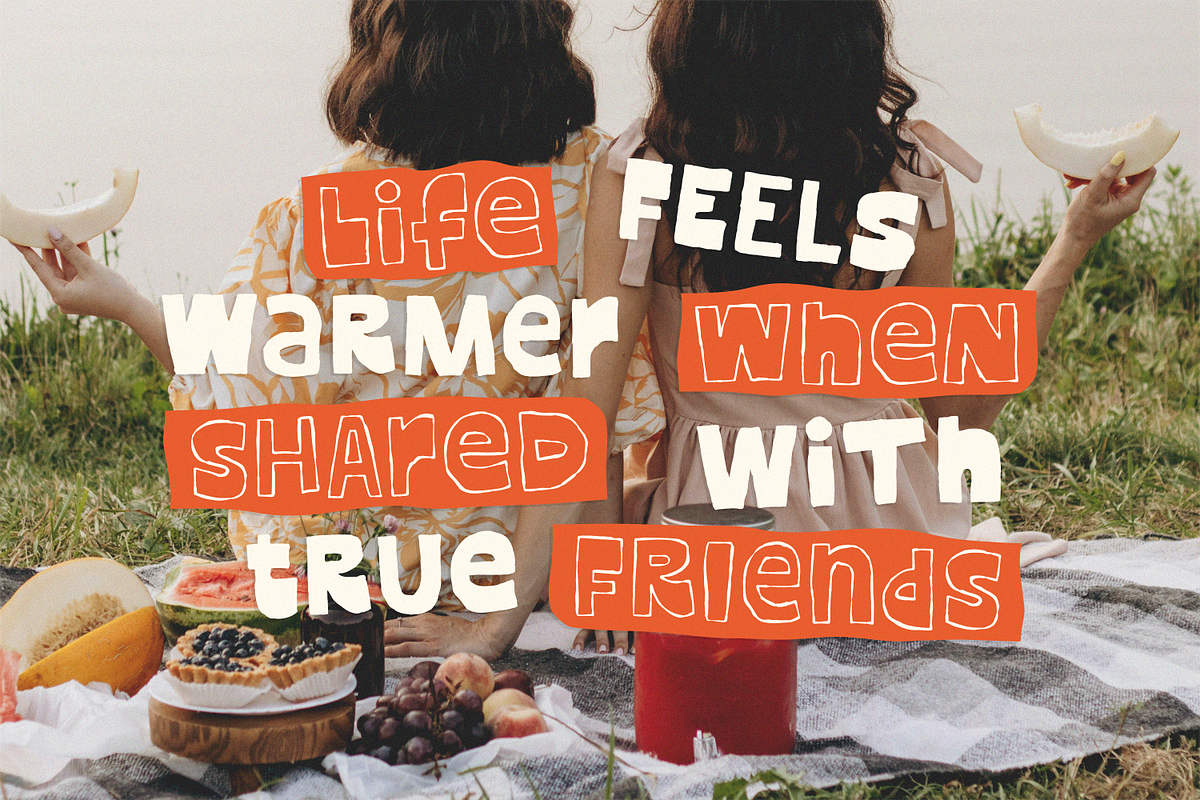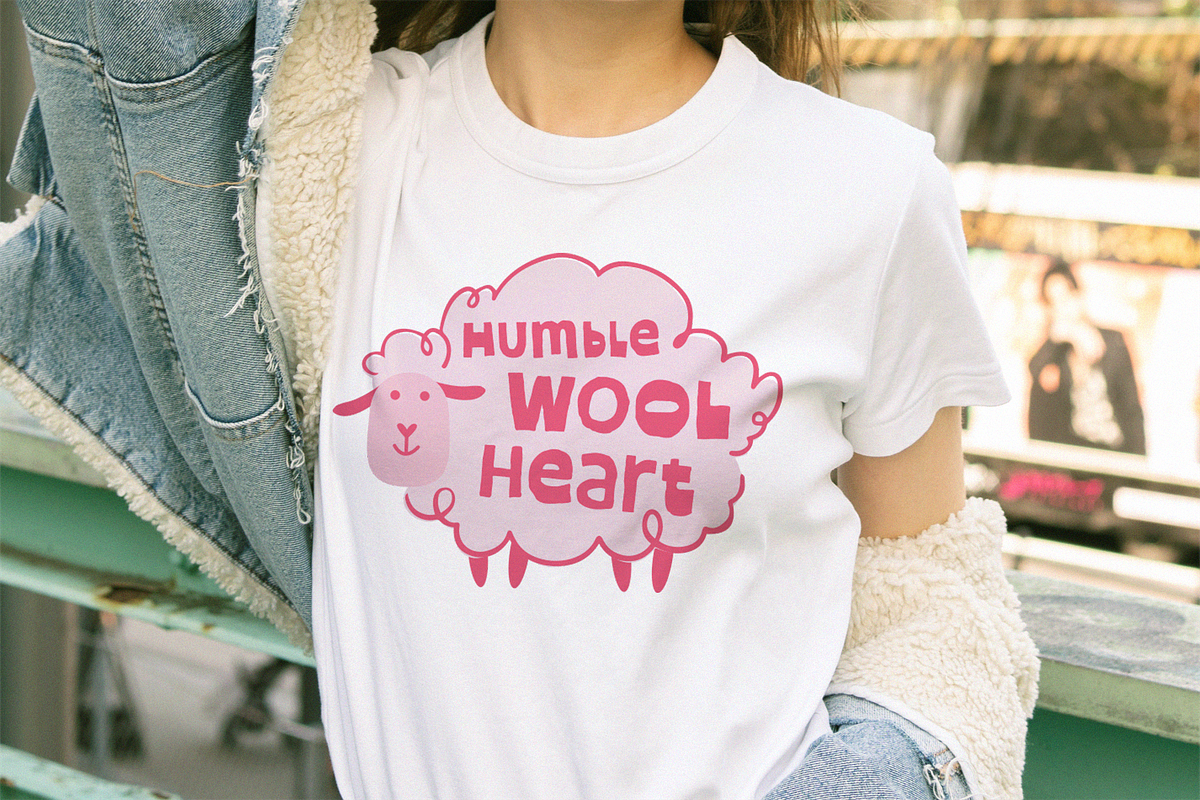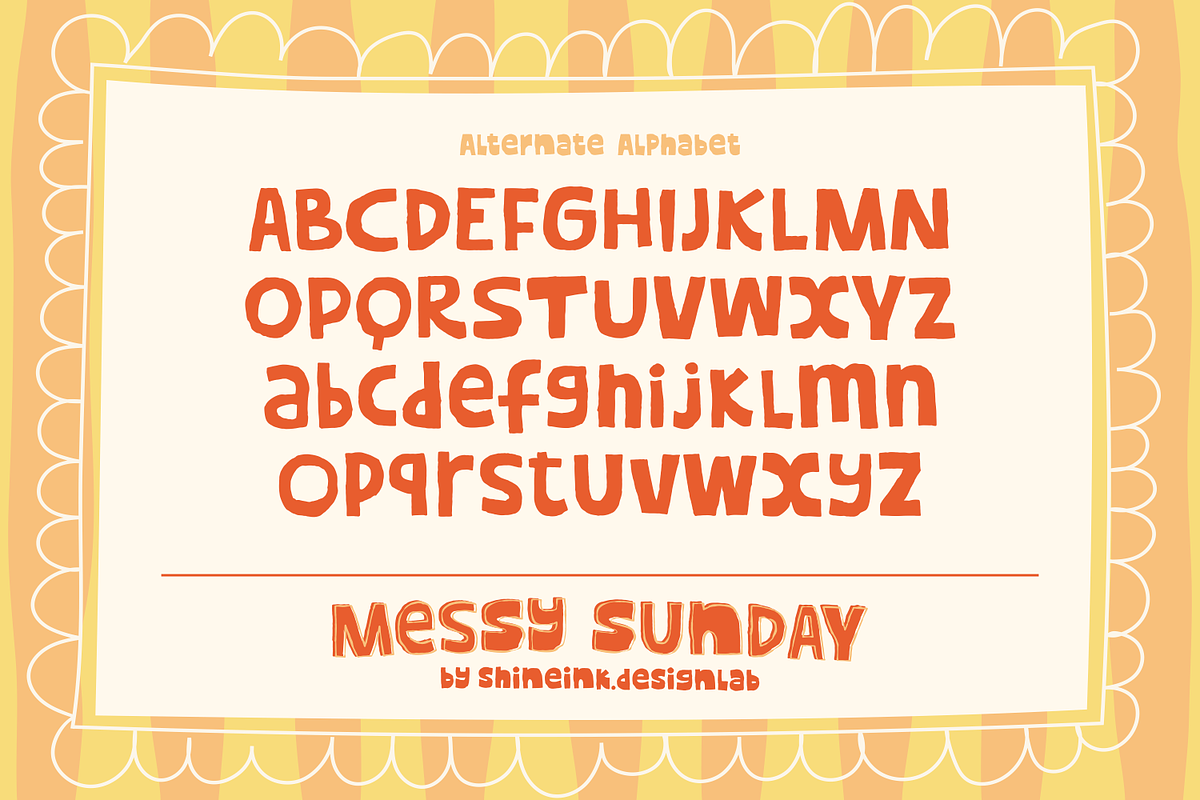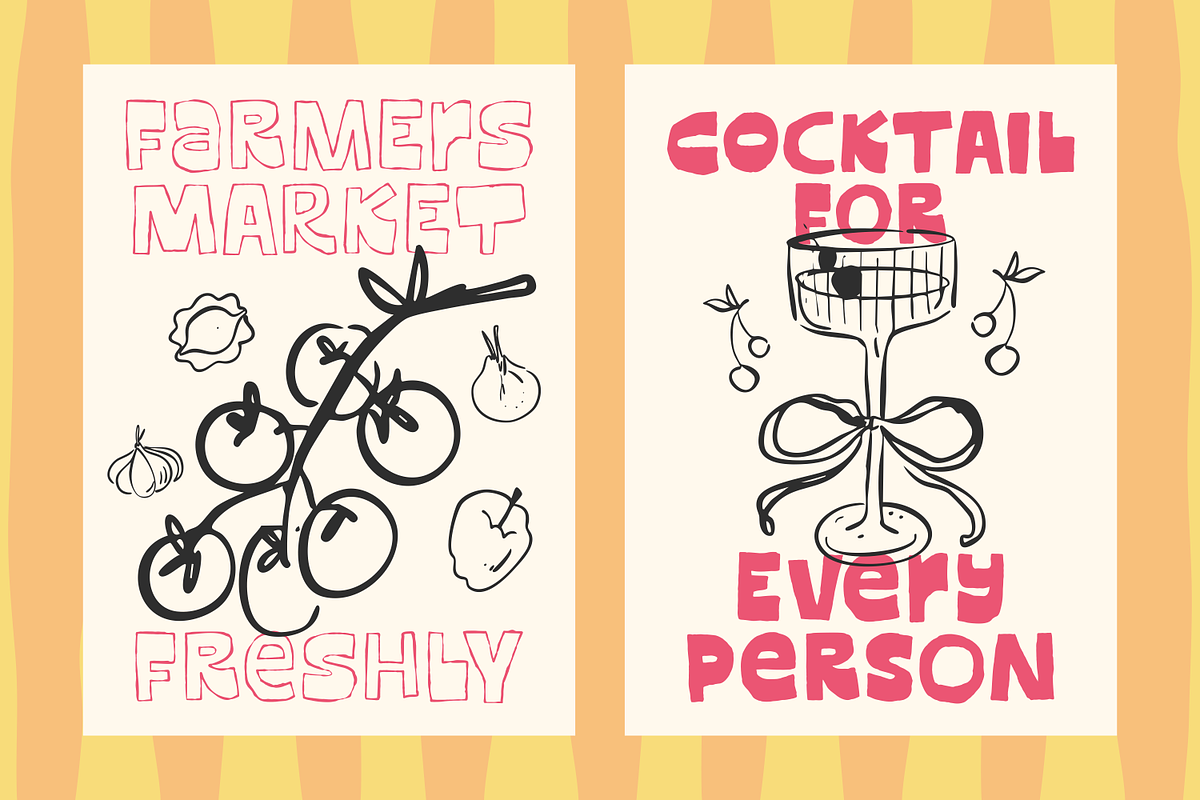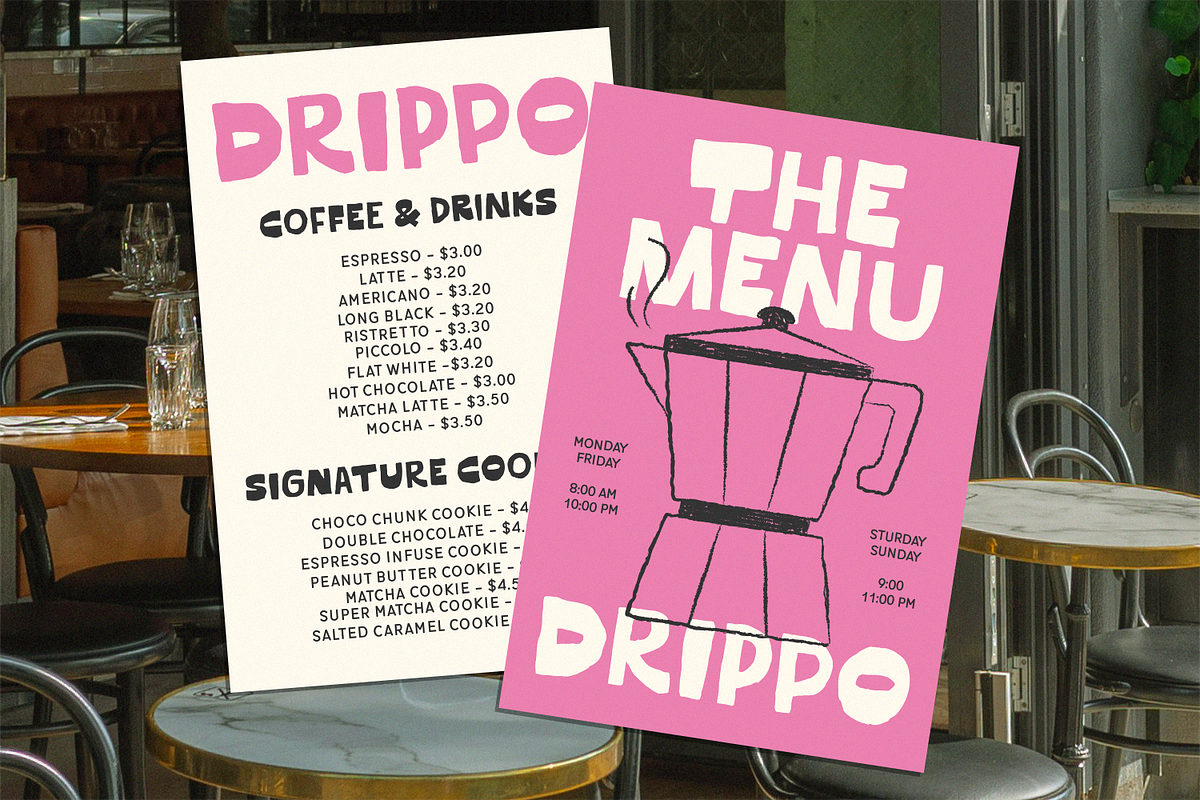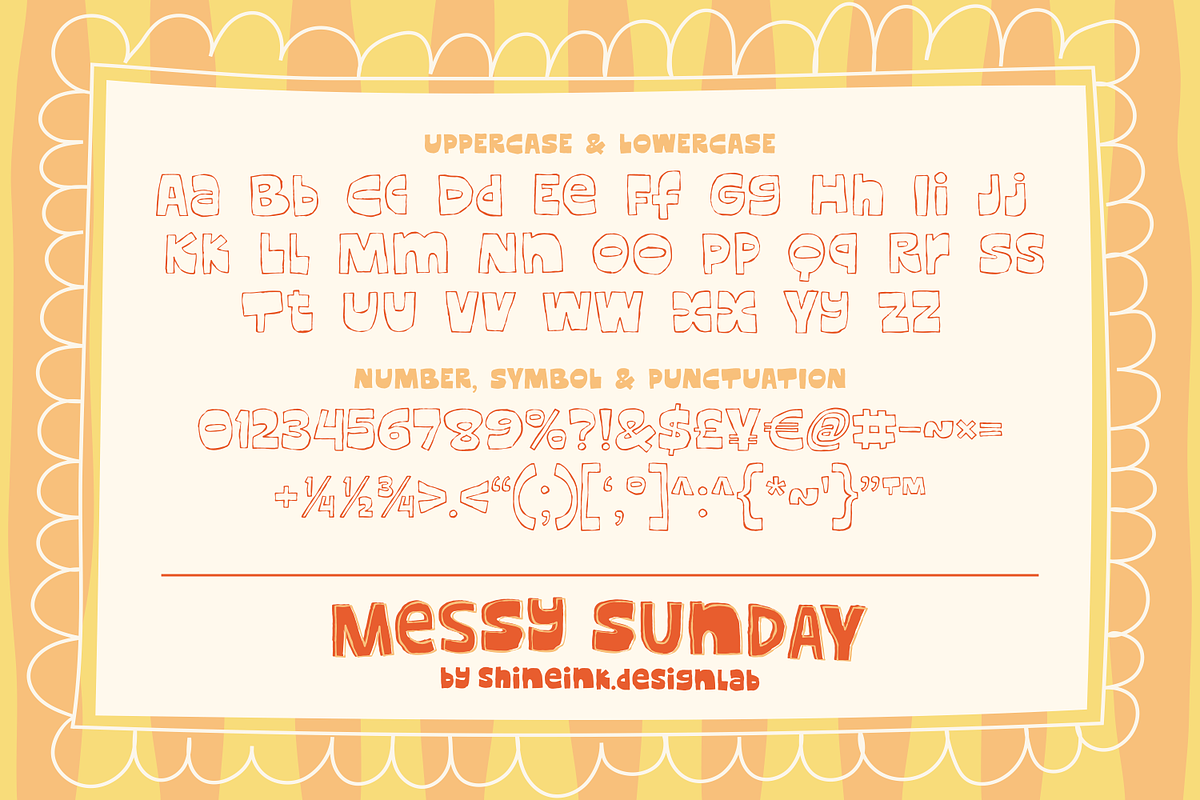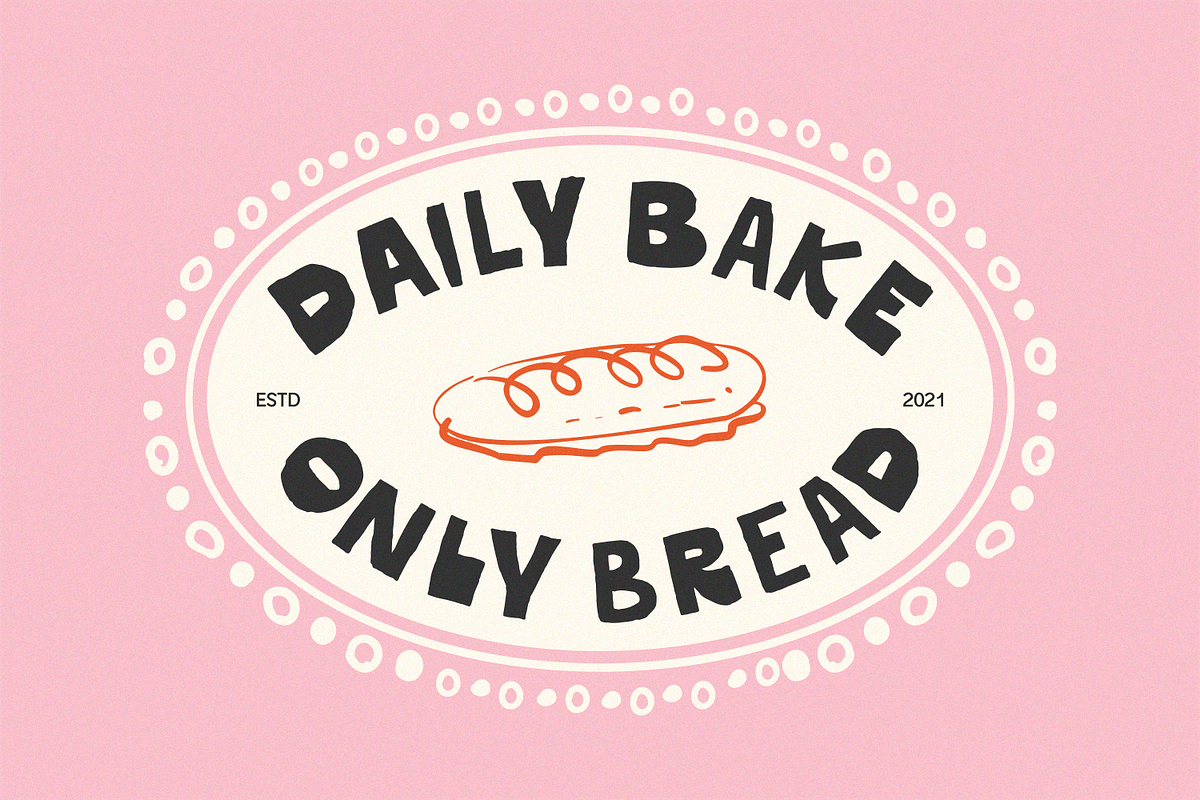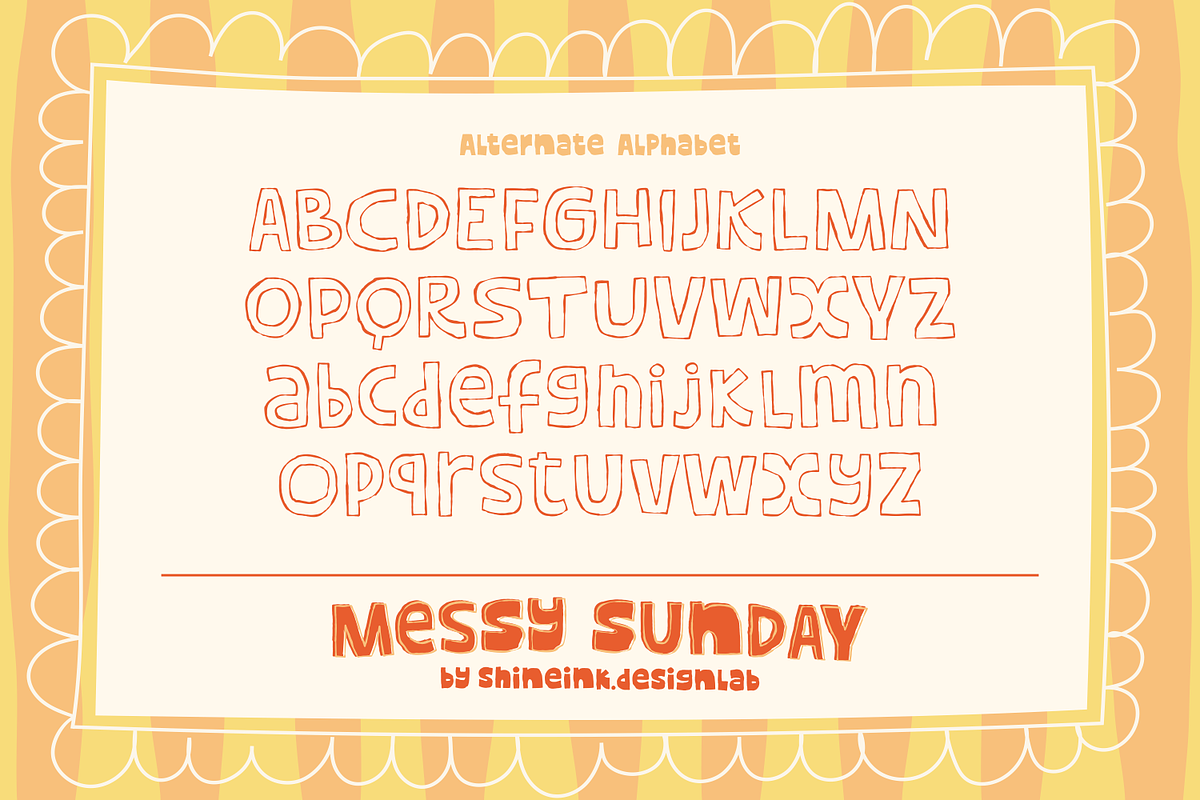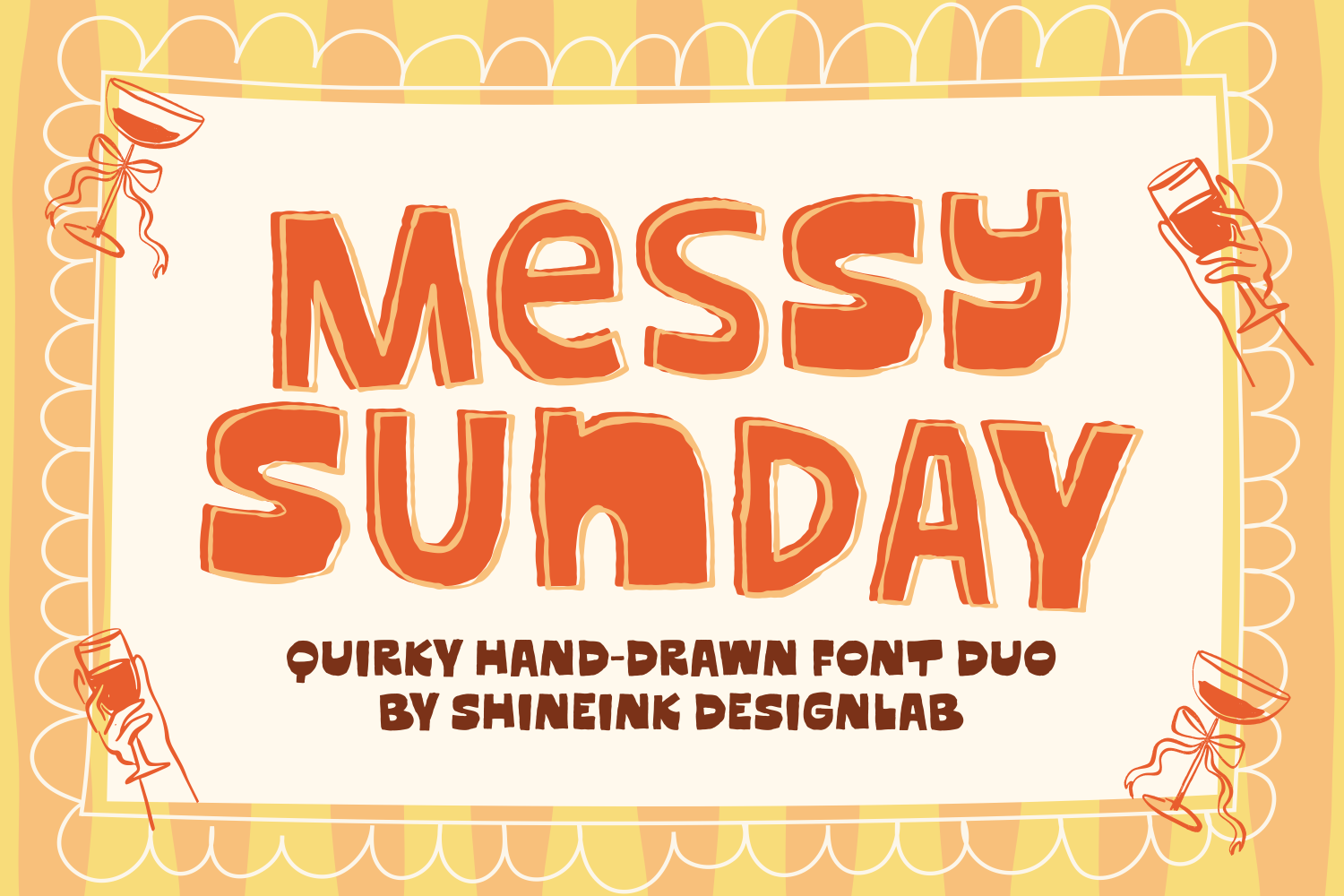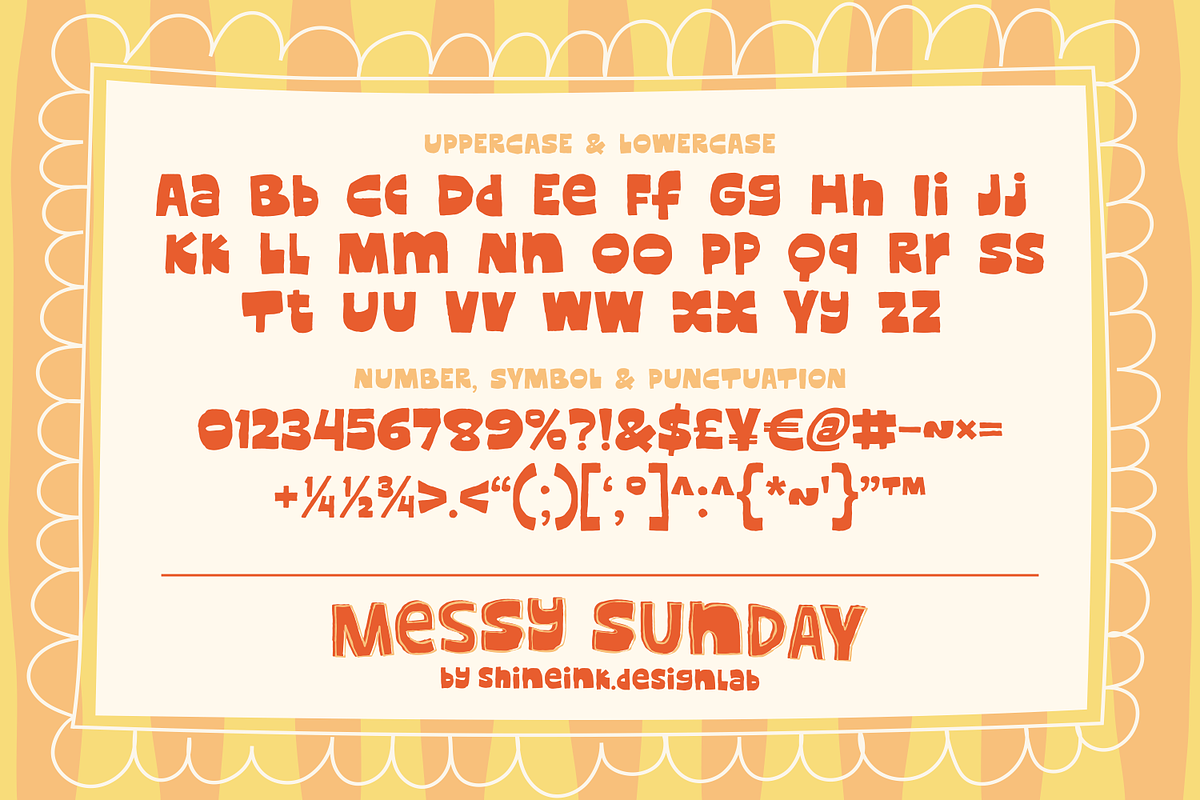
Messy Sunday – Quirky HandDrawn Font
I'm present to you, a playful hand-drawn font duo, called Messy Sunday!
Messy Sunday a playful hand-drawn font duo that captures the carefree spirit of slow weekends, spontaneous ideas, and beautifully imperfect creativity. Inspired by the charm of doodles, sketchy lettering, and relaxed vibes, this font brings a warm, friendly personality to every design.
Messy Sunday comes with two versatile styles: Regular and Outline, designed to work perfectly together. The Regular version delivers bold, fun, and expressive lettering, while the Outline version adds a creative layered look that makes your typography pop. Combine them to create eye-catching titles, playful branding, and unique visual compositions.
With its slightly imperfect strokes and quirky shapes, Messy Sunday feels authentic, human, and full of character perfect for designers who want their work to feel more lively and expressive.
Whether you're creating cheerful branding, retro posters, or playful social media graphics, Messy Sunday will instantly give your typography a relaxed and memorable look.
- Lowercase and Uppercase
- Multiple Languages Supported
- 2 Style Font : REGULAR, OUTLINE
- Alternate Alphabet Uppercase & Lowercase